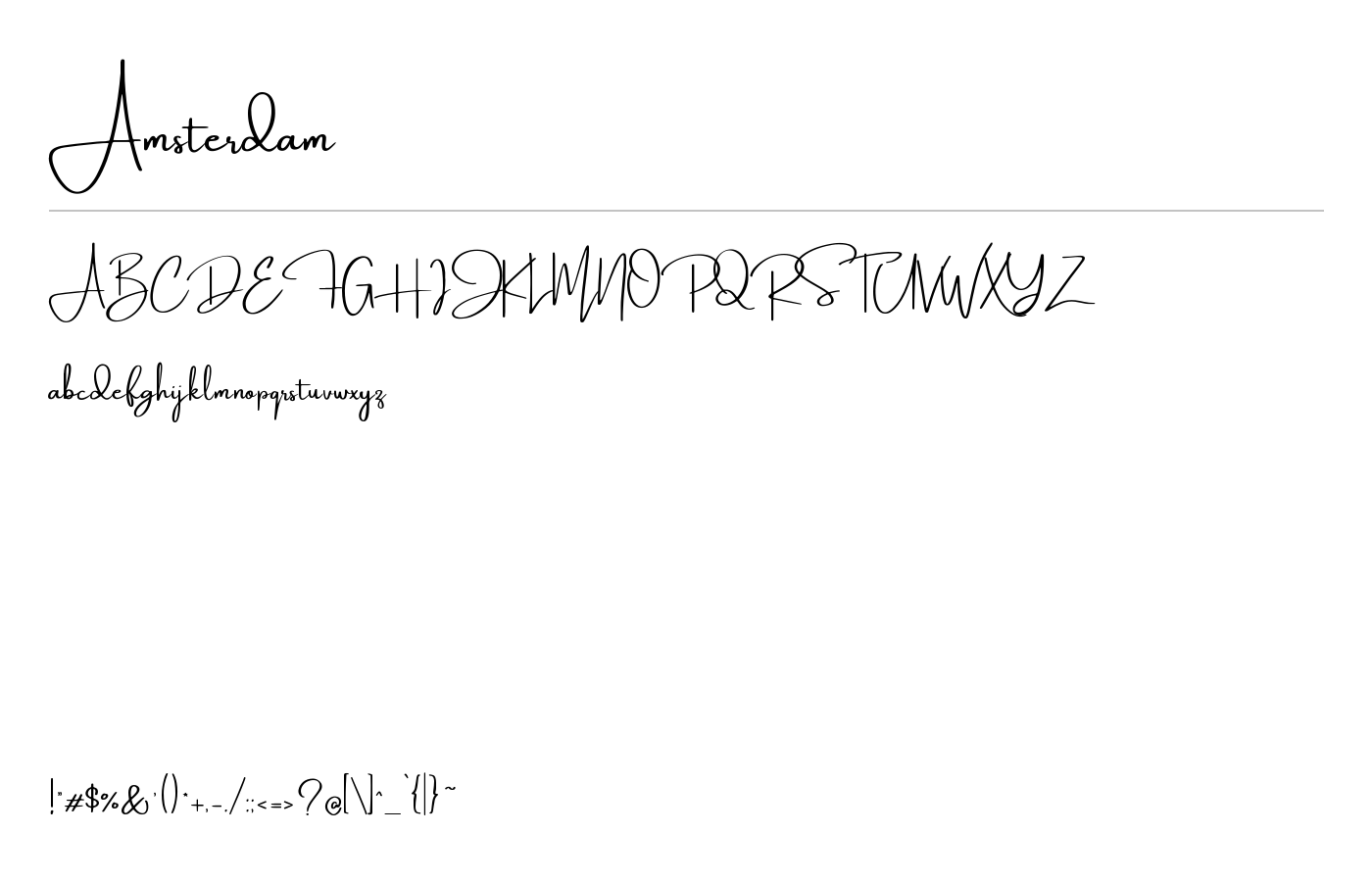
Amsterdam is a delicate and elegant script font characterized by its thin, flowing strokes and playful, handwritten style. With its tall, narrow letterforms and intricate loops, it conveys a personal, whimsical charm ideal for branding, invitations, and fashion projects that seek a sophisticated yet approachable feel. This font works best for headlines and logos where a light, airy, and artistic touch is desired.
Amsterdam Font
About Amsterdam Font
| Font family | Amsterdam Font |
| Designer | Lettersiro 2017 |